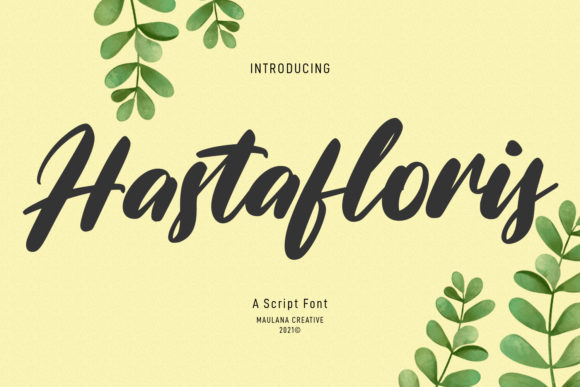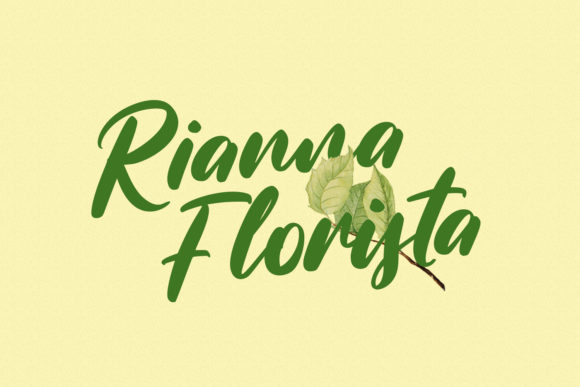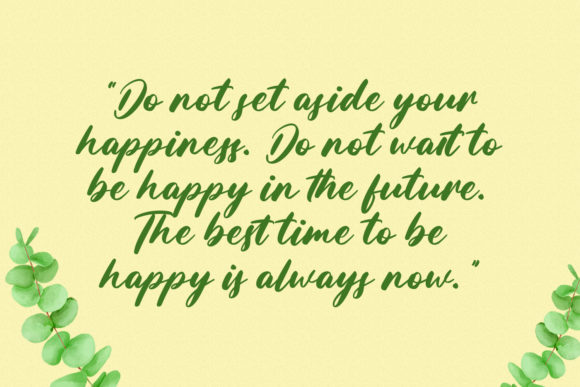
About Hastafloris Script Font
Hastafloris Script is a unique and elegant handwritten font. It looks beautiful on a variety of designs requiring a personalized style, such as wedding invitations, thank you cards, weddings, greeting cards, logos and so on.